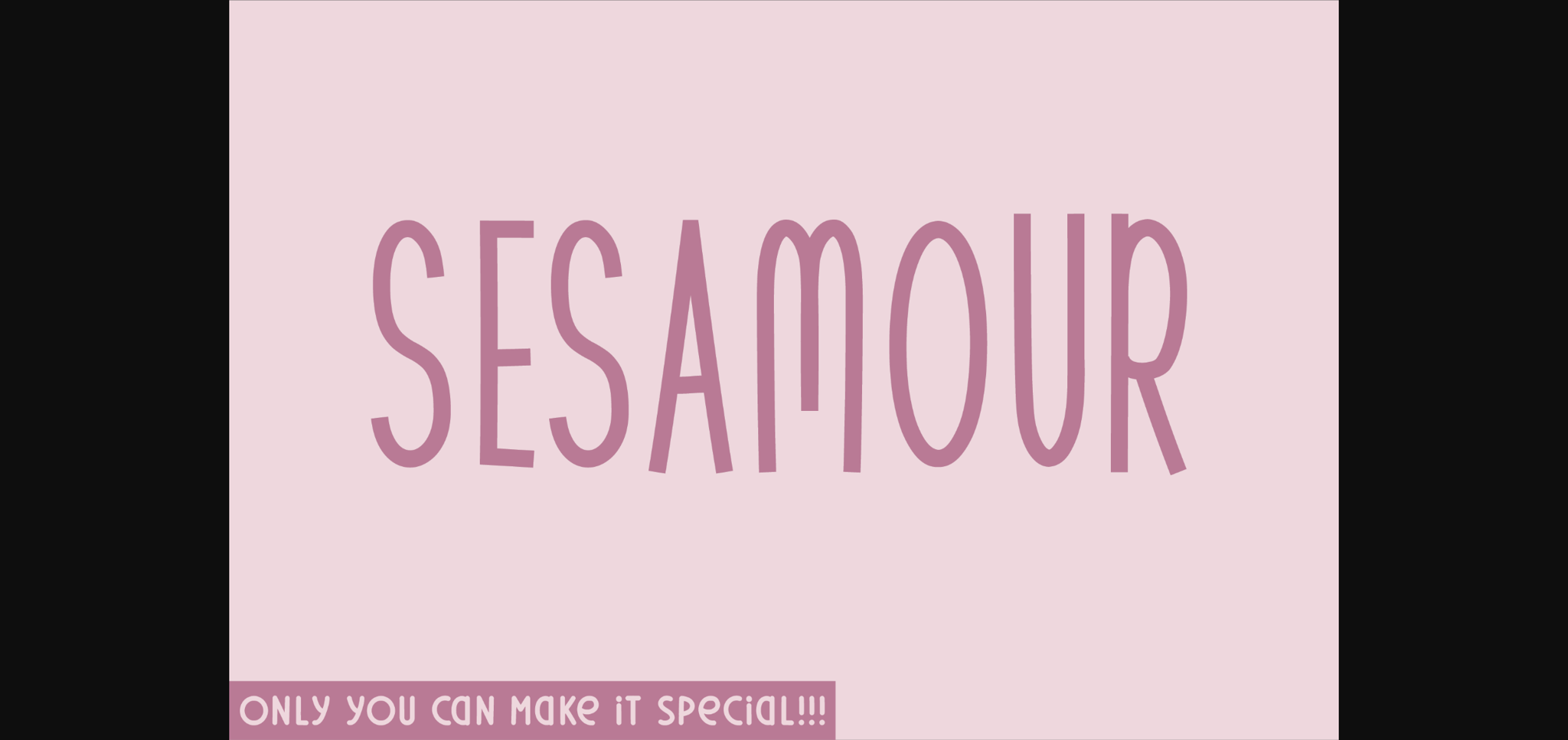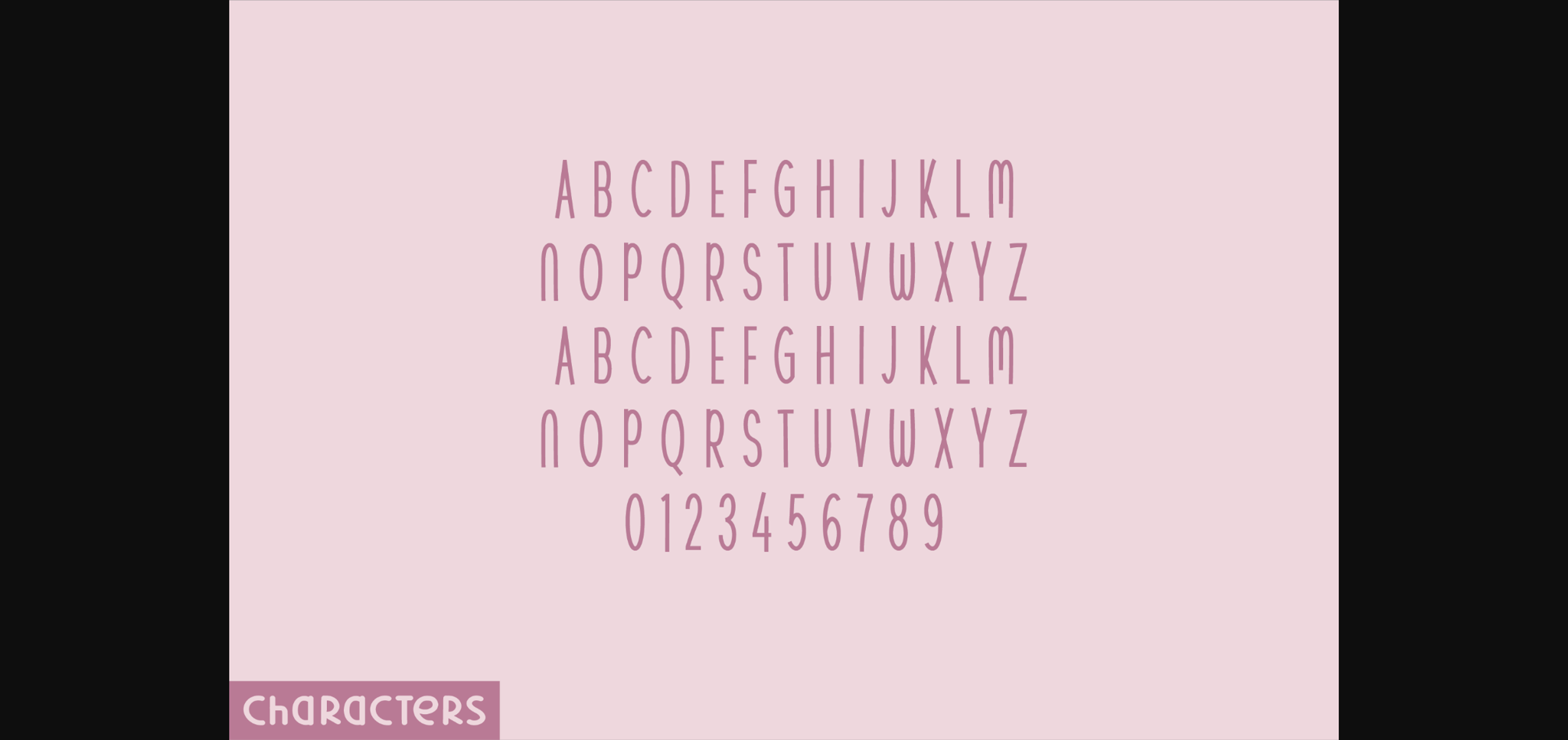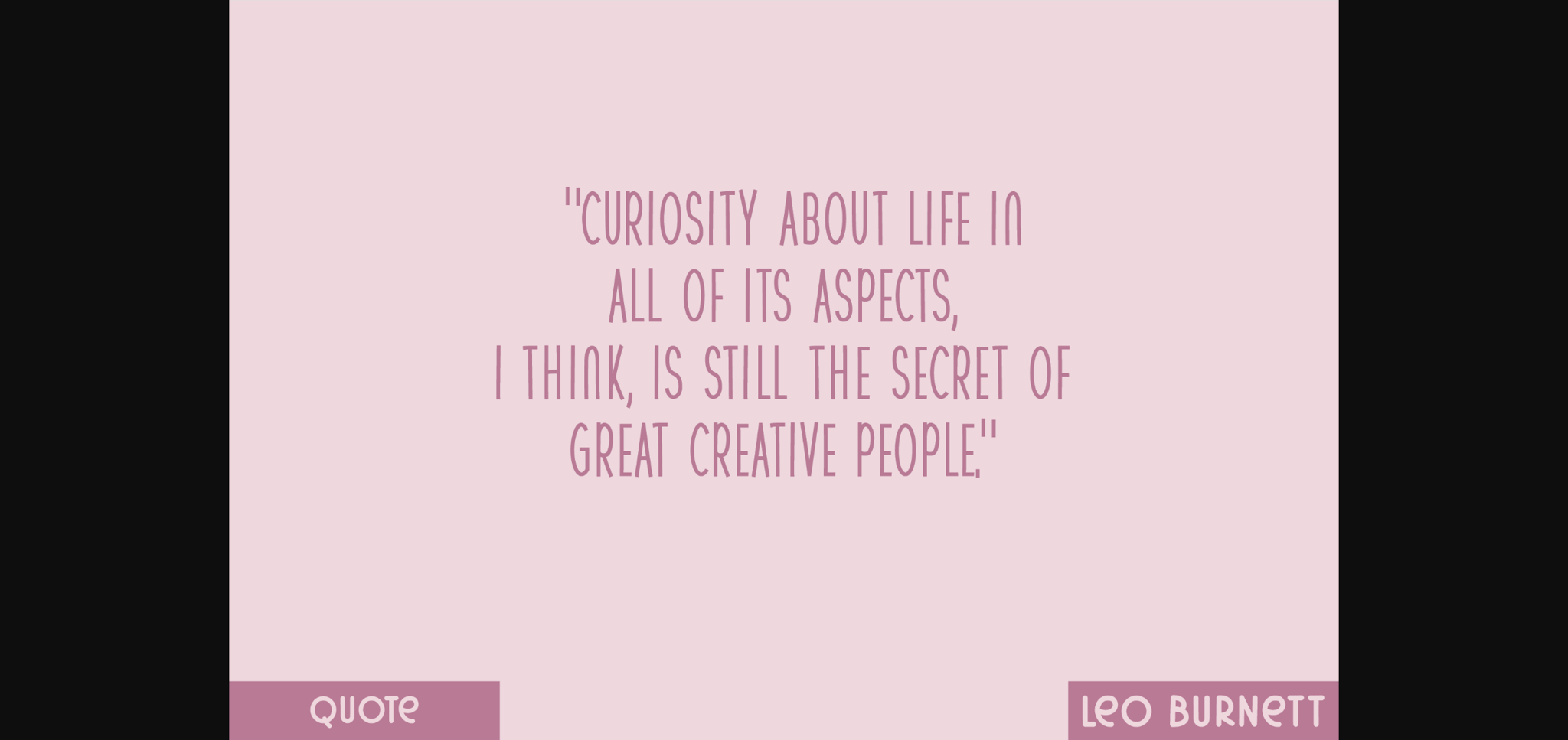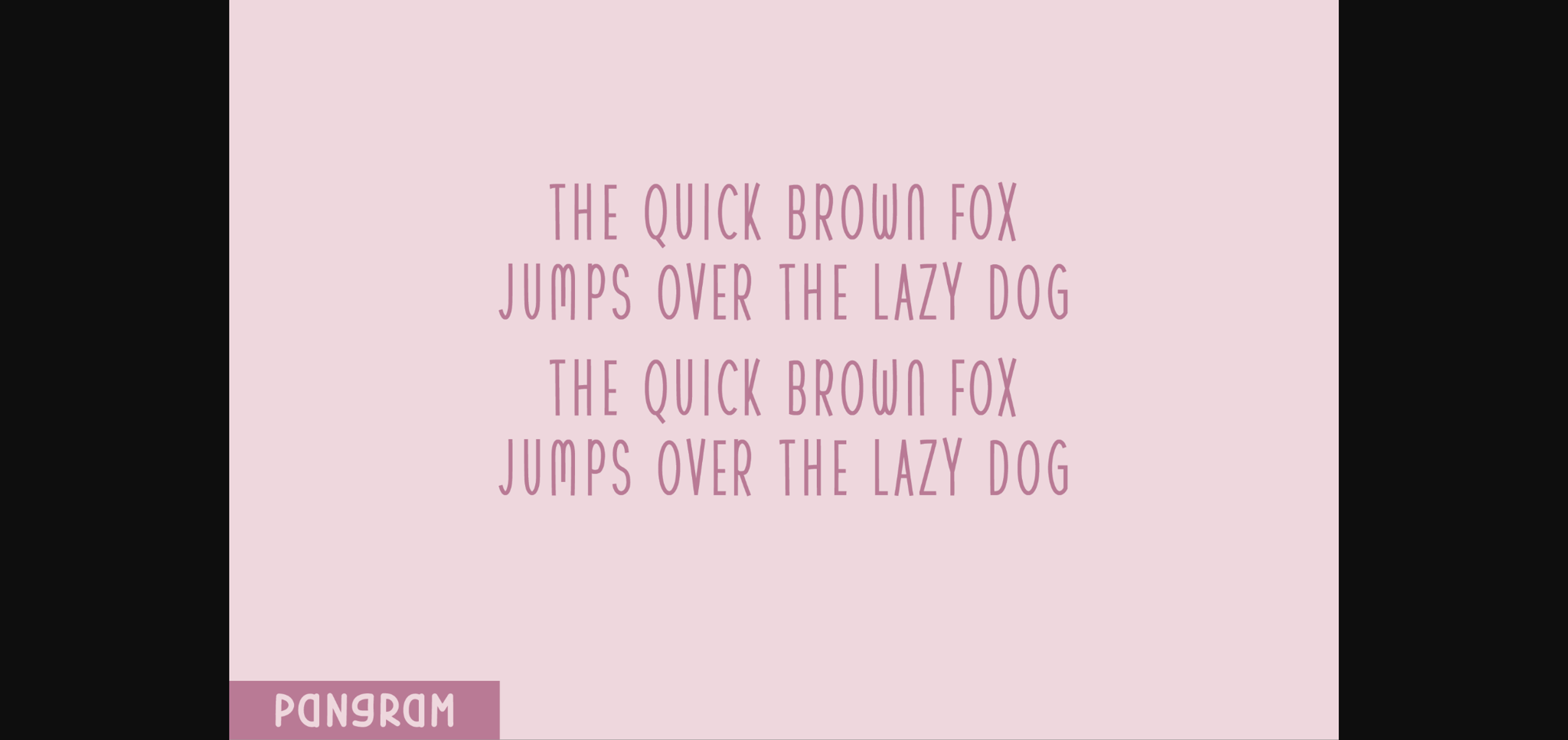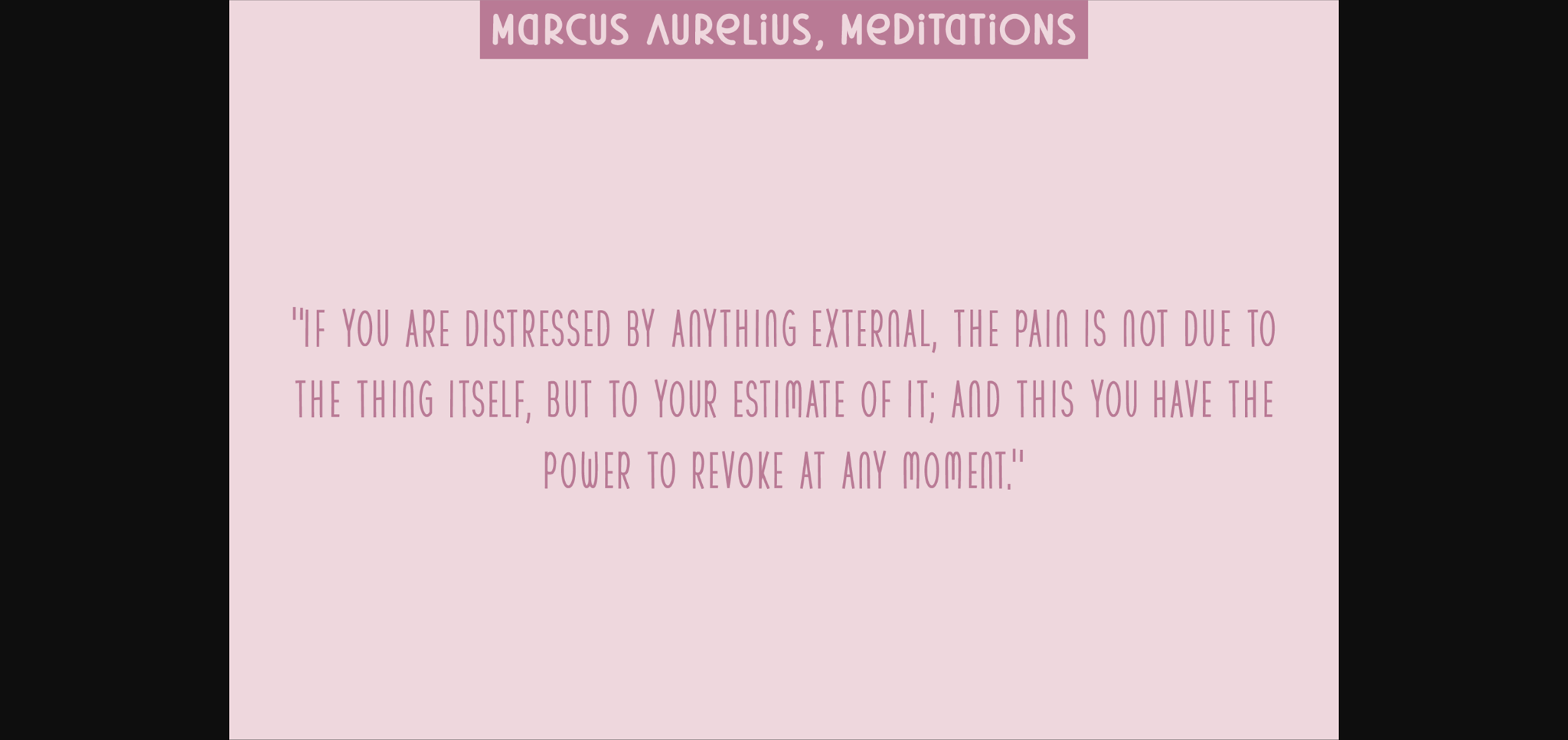
Sesamour Font
About Sesamour Font
Elevate your designs with Sesamour, a sans serif display font that eloquently marries the modernity of clean lines with the candid charm of natural handwriting. The character set is replete with robust uppercase alphabets, numbers, and essential functionalities. Each termination of a letter stands firm and straight, yet exudes an earthy, handwritten appeal. Harness the versatility of Sesamour to add a touch of organic allure to any design that calls for an unfeigned, natural aesthetic.